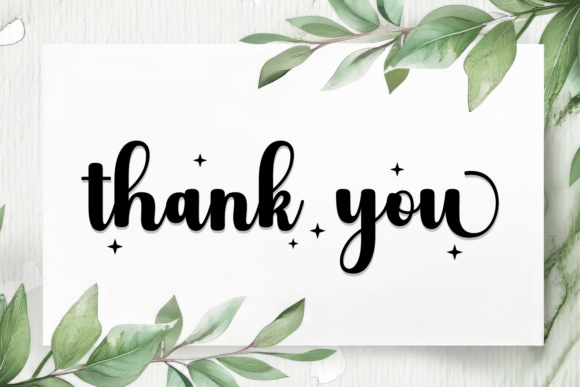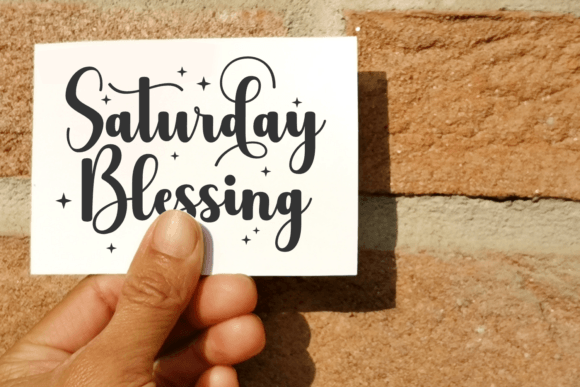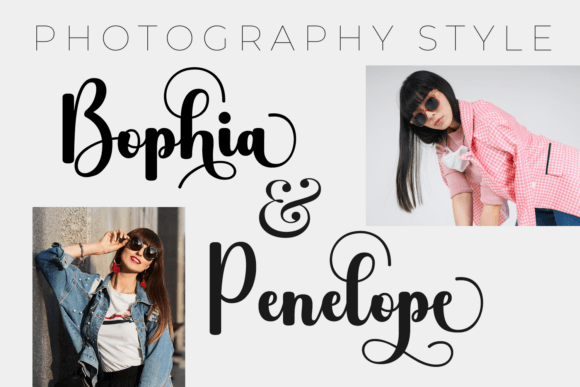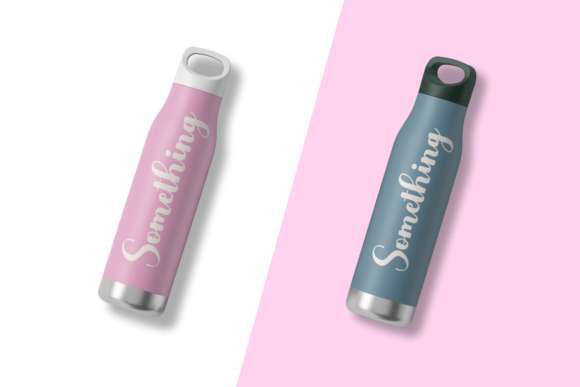
Introduction to Gahista Font
Have you ever been stuck on a design project, desperately searching for the perfect font to give your creation that extra oomph? You know the moment when everything falls into place, and your design comes alive with a single, elegant stroke of the pen? That’s exactly what happened when designers first laid eyes on the Gahista Font.
This stunning script font is more than just a pretty face – it’s a game-changer for designers looking to elevate their work. With its modern style and playful touch, the Gahista Font is perfect for a wide range of creative projects, from eye-catching invitations to bold logos.
Key Features of Gahista Font
- High-quality design resource ideal for creative projects, offering a unique and stylish touch.
- Features a transparent background, making it perfect for use on any background or design element.
- Includes a range of characters and glyphs, including uppercase and lowercase letters, numbers, and special characters.
- Unique characteristics: Gahista Font features a distinctive, hand-drawn design with subtle imperfections, giving it a personal and creative feel.
Honest Review: Gahista Font
As a designer, I’m always on the lookout for high-quality design resources to elevate my creative projects. Recently, I stumbled upon the Gahista Font, and I’m excited to share my honest review with you.
What works well: ✨ The Gahista Font is a beautifully crafted font that offers a unique blend of modern and elegant styles. Its sleek lines and subtle curves make it perfect for a wide range of creative projects, from branding to editorial design. I particularly appreciate the transparent background, which allows for seamless integration with other design elements.
- High-quality design with a modern aesthetic
- Perfect for creative projects, including branding and editorial design
However, I do have some reservations: ⚠️ The font is a bit limited in its versatility, with a relatively small character set. This may not be a concern for designers who only need a few specific characters, but for those who require a more extensive range of options, the Gahista Font may not be the best choice.
Overall, I’m impressed with the Gahista Font’s quality and style, but I wish it offered more flexibility in terms of character set and customization options. If you’re looking for a high-quality font for a specific project, I’d definitely recommend checking it out – just be aware of its limitations.
Getting the Most Out of Gahista Font
To get the most out of the Gahista Font, experiment with different font sizes, colors, and styles. You can also use it in combination with other design resources to create a unique and eye-catching design.
The Gahista Font is ideal for creative projects such as logo design, branding, and typography-based art. Its high-quality design and transparent background make it a versatile design resource for any project.